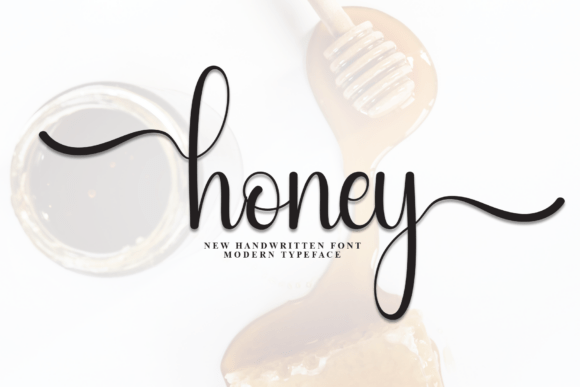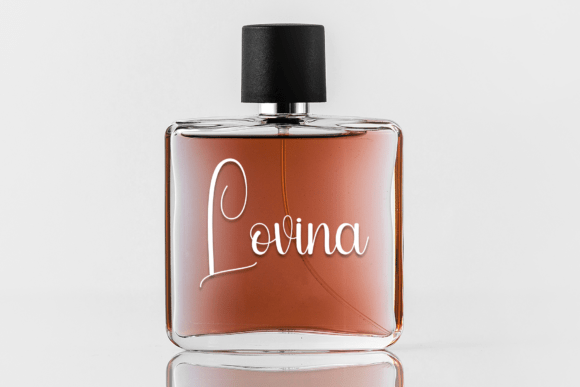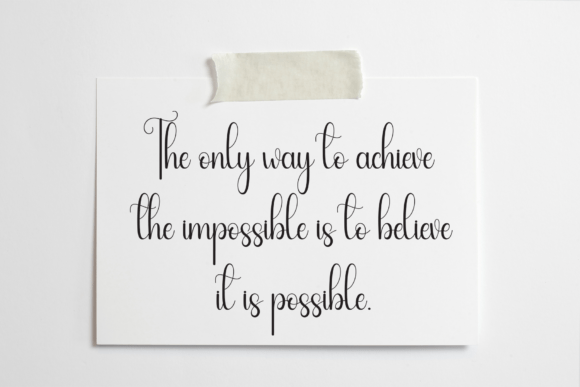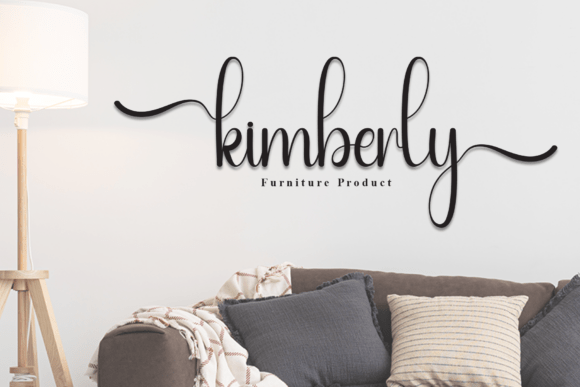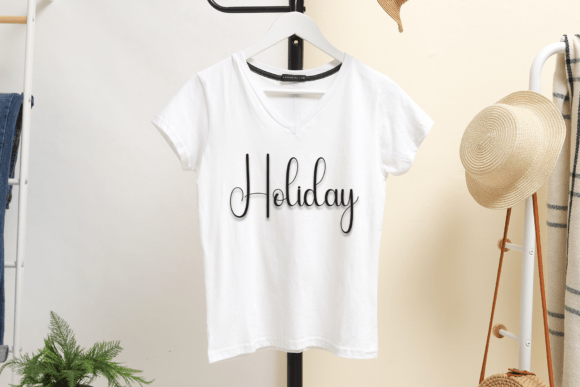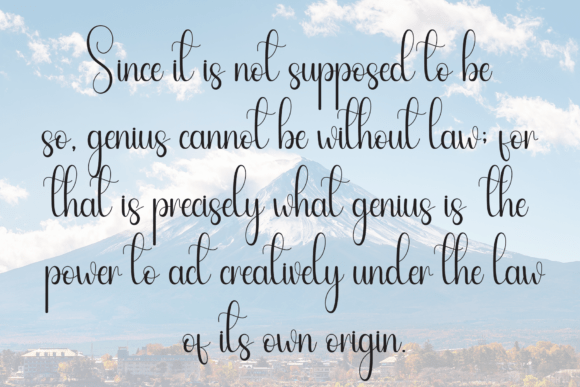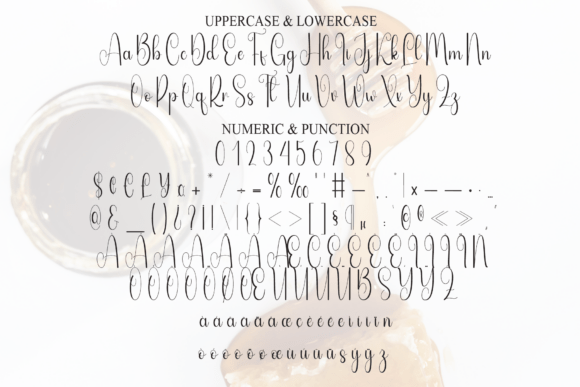
The Sweet Spot for Designers: Honey Font
Remember the moment when you stumbled upon the perfect font for your project, and it all came together? The typeface that speaks to your audience, elevates your brand, and leaves a lasting impression. For designers, this moment is a game-changer. And for those in search of the perfect handwritten script, the Honey Font is a game-changer.
This stylish handwritten script font combines modern elegance with a playful touch, making it perfect for logos, packaging, and invitations. With its fluid strokes and charming curves, the Honey Font brings a personal feel to any design. Whether you’re a seasoned designer or a creative entrepreneur, this versatile typeface is a valuable addition to your toolkit.
Honey Font Key Features
- Unique Characteristics: Honey Font features a unique, hand-drawn design with subtle imperfections, giving it a warm and inviting feel.
Honey Font Review
Overall, I was excited to dive into the Honey Font and see what it had to offer. Here’s my honest review:
- The Honey Font has a unique and playful feel that’s perfect for creative projects or brand identities that want to stand out.
- The font is highly customizable, with a wide range of font sizes, colors, and styles to choose from.
- The font is also highly legible, making it a great choice for body text or large blocks of content.
- The Honey Font may not be the best choice for formal or professional projects, as its playful feel may come across as unprofessional.
- The font can be a bit overwhelming when used in large quantities, so be sure to use it sparingly.
- The font’s customizability can also make it difficult to maintain a consistent design across different elements.
Overall, I think the Honey Font is a solid choice for creative projects or brand identities that want to add a touch of whimsy and personality. However, it may not be the best fit for every project, and requires some careful consideration and planning to use effectively.
Tips for Getting the Most Out of Honey Font
Use Honey Font for titles, headings, and emphasis to create a visually appealing design.
Combine Honey Font with other fonts to create a unique and stylish look.
Experiment with different font sizes, colors, and styles to achieve the desired effect.
Honey Font is ideal for:
Creative projects, such as graphic design, photography, and art.
Marketing materials, such as brochures, flyers, and business cards.
Personal projects, such as blog posts, social media graphics, and presentations.
Alternatives to Honey Font for Designers
Lato is a modern sans-serif font designed by Łukasz Dziedzic. It is a great alternative to Honey Font for designers who want a clean and elegant look for their website or application. Lato is highly legible and works well for both body text and headings. It is also available in a wide range of weights and styles.
Compared to Honey Font, Lato has a more modern and minimalist feel, while Honey Font has a more traditional and classic look. Lato is also more versatile and can be used in a variety of design contexts.
Montserrat is a sans-serif font designed by Julieta Ulanovsky. It is a great alternative to Honey Font for designers who want a bold and urban look for their website or application. Montserrat is highly legible and works well for both body text and headings. It is also available in a wide range of weights and styles.
Compared to Honey Font, Montserrat has a more modern and edgy feel, while Honey Font has a more traditional and classic look. Montserrat is also more suitable for urban and industrial design contexts.